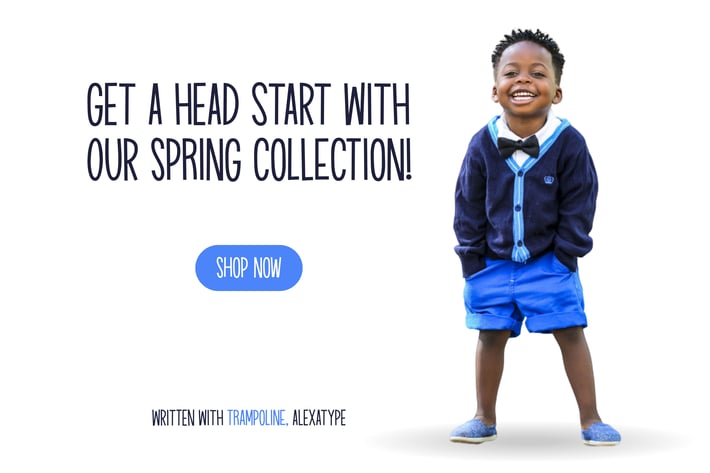
Trampoline - Playful Sans Serif Font
Trampoline - Modern Children Font
Trampoline is a vertically stretched display font with a playful bounce in its rhythm — made to brighten up kid-centric layouts and feel-good campaigns. With slim lines, soft terminals, and gentle height exaggeration, it gives every word a springy personality without compromising readability. Whether you're promoting kids’ fashion, cereal packaging, or educational materials, Trampoline adds cheerful structure that feels both cute and neat.
Not all children’s fonts need to be chunky or overly wiggly. Trampoline hits a sweet spot — light, energetic, and clean. It’s a great pick for brands that want to speak to children and parents alike: modern enough for digital interfaces, and warm enough for birthday invites, lunchbox labels, or storybook covers.
Key Features:
Playful Height with Everyday Usability: Tall proportions make it feel playful yet organized.
Made for Modern Kids' Branding: Ideal for clothing ads, food packaging, social content, and parenting campaigns.
Solves the Overdone Kids Font Problem: Tired of overly squiggly fonts that sacrifice clarity? Trampoline brings joy while keeping things legible and chic.
Bring bounce and brightness to your designs with Trampoline — a joyful typeface that plays well in any kid-friendly context. From online stores to birthday graphics, it adds the perfect pop of cheerful personality.